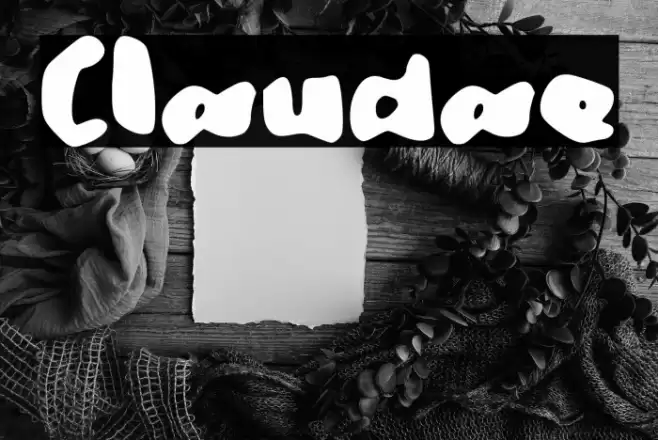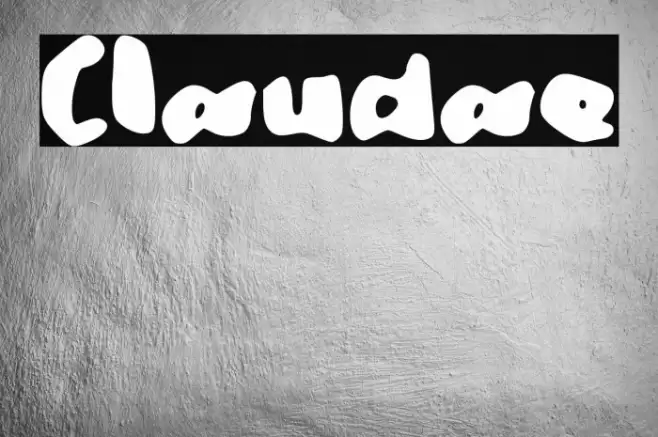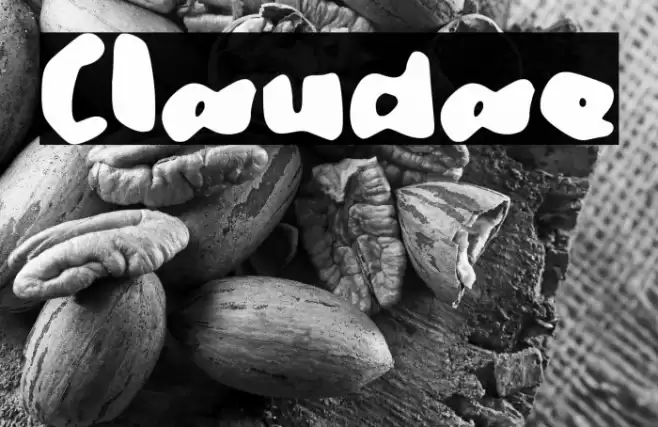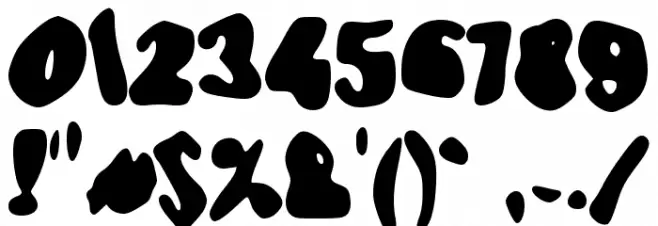
Claudae Font
Claudae Description
This font features a playful and bold design with rounded, irregular shapes that give it a whimsical and informal appearance. The characters are thick and heavy, with a consistent stroke width that adds to its boldness. The overall style is reminiscent of hand-drawn or doodle-like lettering, making it ideal for creative and fun projects. The uppercase and lowercase letters maintain a consistent style, with the lowercase letters being slightly smaller but equally bold. Numbers and special characters follow the same playful design, ensuring uniformity across all elements.
A playful, bold font with rounded, irregular shapes and a whimsical style from Uncategorized fonts.
- Font: Claudae
- Proposed Projects: Ideal for children's books, playful branding, party invitations, and creative posters.
- Overall Style: Playful, Whimsical, Hand-drawn